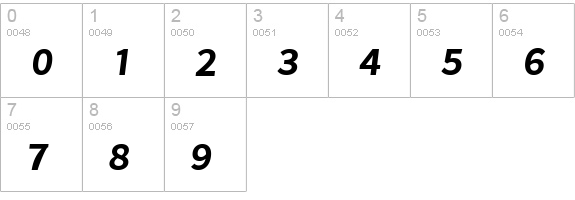
Falling Sky SemiBold Oblique Font Details
Falling Sky SemiBold Oblique is a sub-bold, structured, italic variant in the Falling typeface family \xE2\x80\x94 well suited to sub-headlines and emphasised passages.
Falling Sky SemiBold Oblique is a captivating font that effortlessly combines boldness and elegance. With its slanted and slightly curved letterforms, this font conveys a sense of motion and modernity. Each character is carefully crafted, enhancing its legibility and making it suitable for a wide range of design projects. This font's versatility shines through in both print and digital applications. Whether it is used for branding, advertising, packaging, or editorial designs, Falling Sky SemiBold Oblique is sure to leave a lasting impression. Its unique style adds a touch of sophistication to any project, making it stand out from the crowd. One of the best features of Falling Sky SemiBold Oblique is that it is freely available to download. FontsMarket.com offers this stunning font for free, allowing designers and creatives to access its beauty without any restrictions. This means that anyone can enjoy the benefits of this exceptional typeface, no matter their budget or project size. Downloading Falling Sky SemiBold Oblique from FontsMarket.com is quick and easy. Simply visit the website, locate the font, and click on the download button. Within seconds, you will have this remarkable font at your fingertips, ready to elevate your design work to new heights. Don't miss out on the opportunity to add Falling Sky SemiBold Oblique to your font library. Its captivating design, combined with its free availability, makes it a must-have for any designer or creative professional. Embrace the boldness and elegance of this font and watch as your designs soar above the rest.